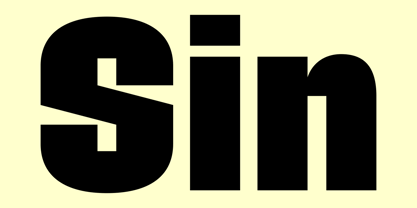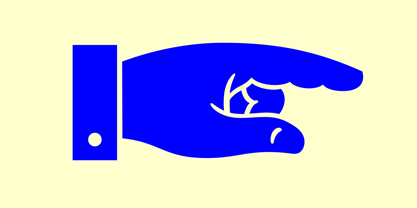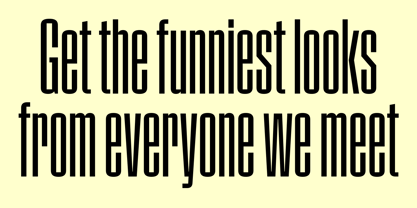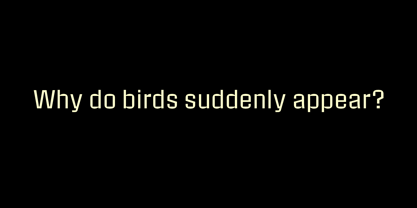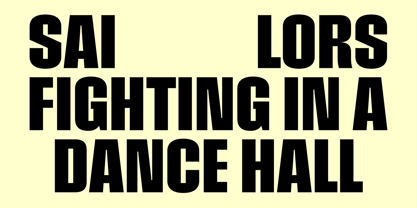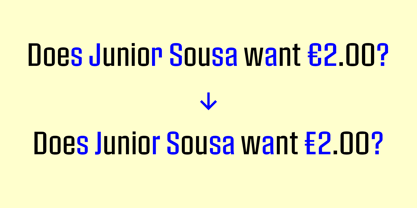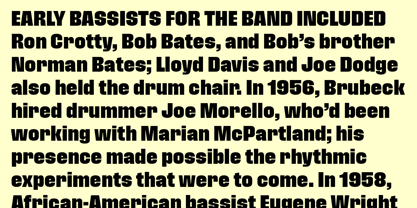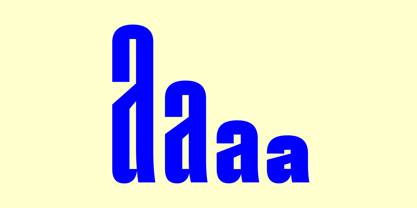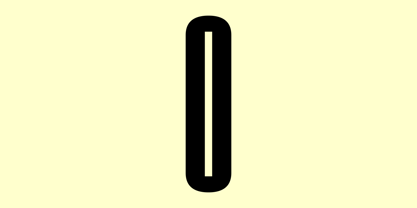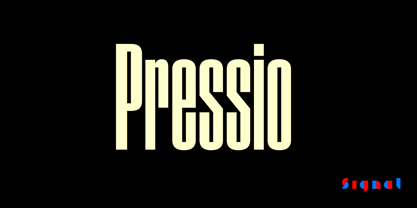
Pressio
by Signal Type Foundry
The Pressio Font Family was designed by Max Phillips and published by Signal Type Foundry. Pressio contains 20 styles and family package options.
Pressio is a study in doing things backwards. We began with the weight that’s usually drawn last: the ultra-compressed black. This was squashed down vertically in increments to make the compressed, condensed, and regular widths, then hollowed like a dugout canoe to produce the lighter weights. The narrower bold cuts are inspired by the great mid-century skyline sanses. The widest cuts are stark, idiosyncratic, and intense. In between, 20 styles in five weights and four widths provide a broad range of expression. Forms are strict and modular. X-height is high. Curves are subtly superelliptical, and square counters add crispness. For those who prefer it, a set of stylistic alternates is available to round some of the unexpectedly sharp corners of letters like S, s, and a. Case-sensitive punctuation and delimiters are included, and a full range of diacritics provides support for over 130 languages. And it goes well with its sister family, Pressio Stencil. A guide to Pressio’s stylistic alternates and special characters can be downloaded here.
Designers: Max Phillips
Publisher: Signal Type Foundry
Foundry: Signal Type Foundry
Design Owner: Signal Type Foundry